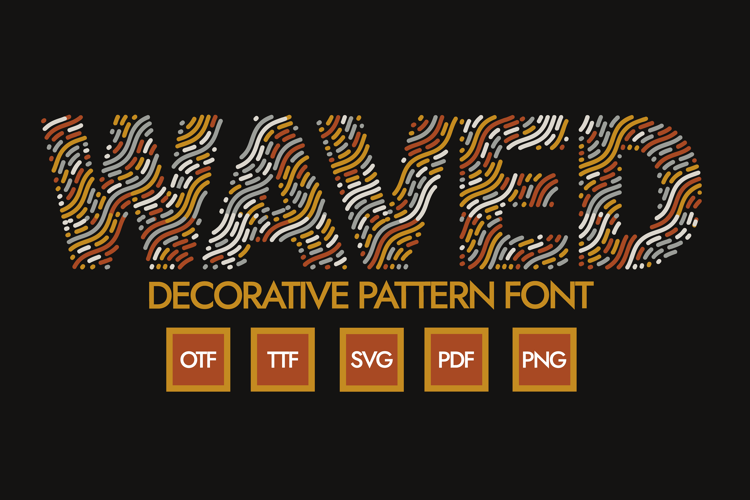
WAVED Font
🎨 Font Name: Waved by Minimalist Art Studio
🎨 Font Description: Waved is a decorative sans serif with multilingual support—perfect for playful branding, artistic packaging, and bold display work.
✔ Complete Latin set + multilingual diacritics
✔ Alternates, stylistic sets & ligatures
✔ Numbers, small caps, and extended punctuation
✔ Bonus italics and family styles